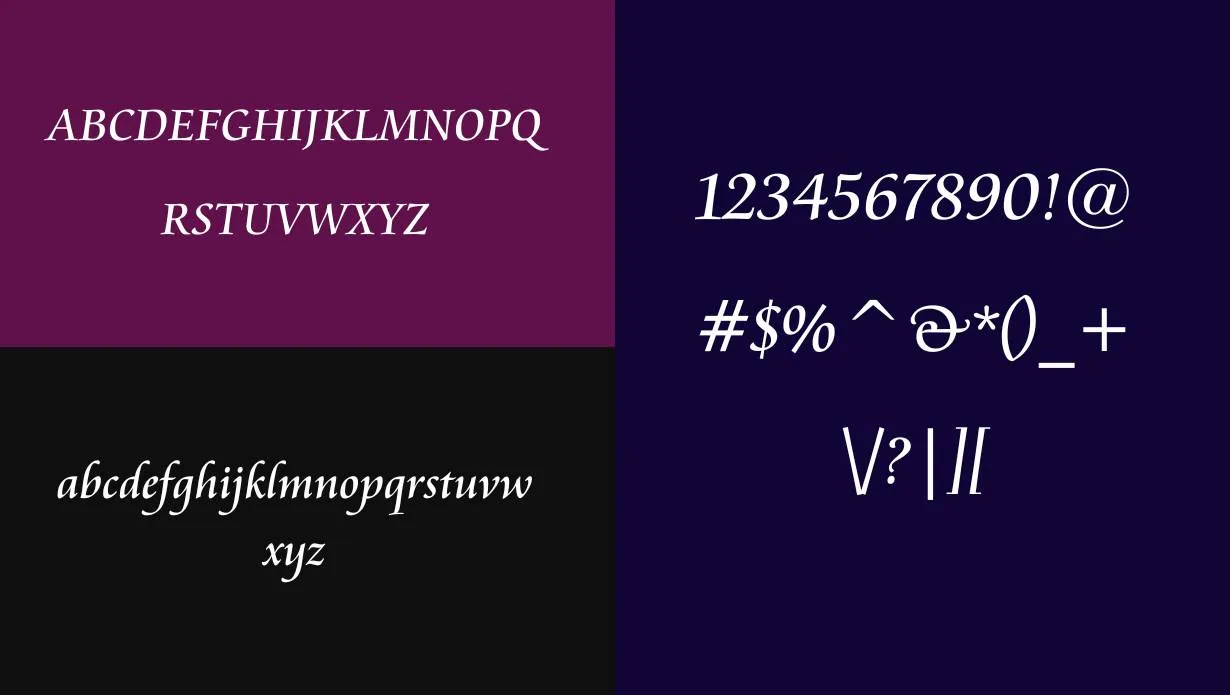
Cataneo Font is a stylish and versatile typeface that fits a wide range of design applications.
Its sleek and contemporary look is great for modern projects, from fashion branding and tech products to corporate reports and advertising materials.
Cataneo Font adds a touch of sophistication and professionalism to your work.
Cataneo Font Family